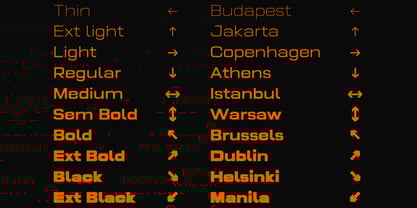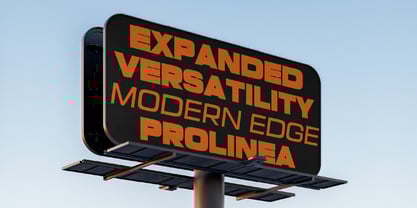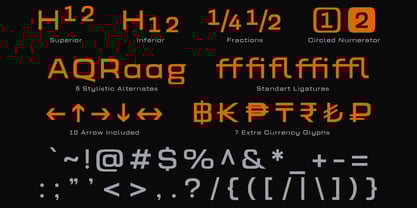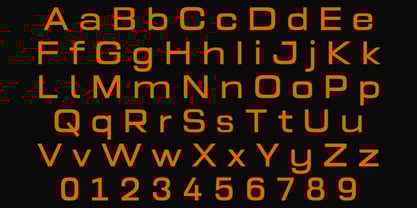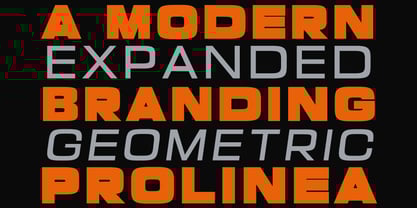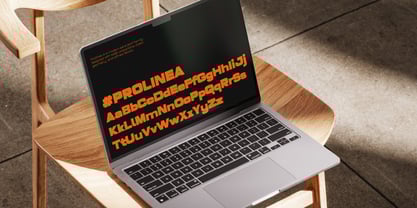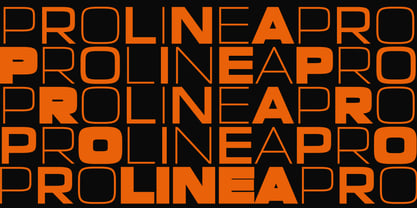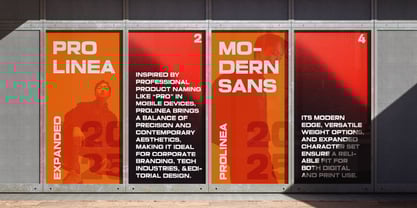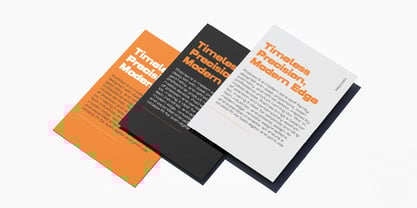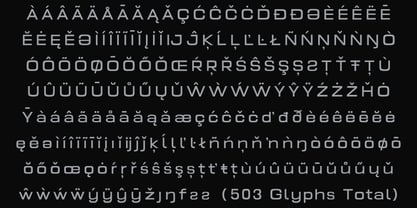
Prolinea
by Lettertype Studio
The Prolinea Font Family was designed by Diki Pradipta Tri Atmojo and published by Lettertype Studio. Prolinea contains 20 styles and family package options.
Prolinea is a modern sans serif family designed with sleek proportions, clean geometry, and refined details. Inspired by professional product naming like “Pro” in mobile devices, Prolinea brings a balance of precision and contemporary aesthetics, making it ideal for corporate branding, tech industries, and editorial design. Its modern edge, versatile weight options, and expanded character set ensure a reliable fit for both digital and print use.
Beyond its core design, Prolinea also features a set of thoughtful alternates and ligatures, giving designers creative freedom when building distinctive logotypes and expressive headlines. With smooth readability, expanded multilingual support, and carefully crafted details, Prolinea adapts seamlessly across media, elevating your projects with clarity, elegance, and timeless style.
Designers: Diki Pradipta Tri Atmojo
Publisher: Lettertype Studio
Foundry: Lettertype Studio
Design Owner: Lettertype Studio